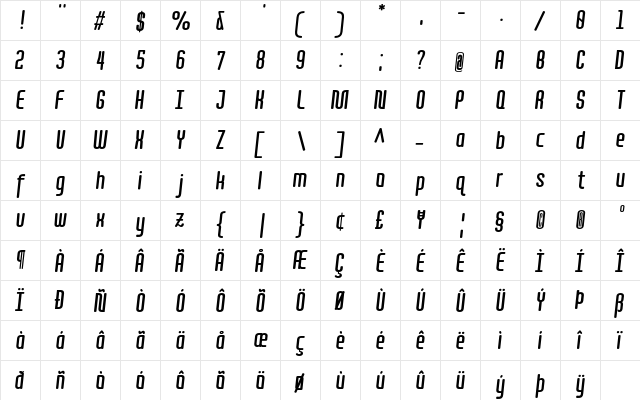
Quota Bold Italic Cond. Font Preview
| Designer | Ryan Hellyer Williamson |
Design Context for Quota Typeface
Quota takes a measured approach to typography — its balanced proportions and neutral character make it a reliable workhorse for both digital and print work. Its italic angle brings a sense of urgency and motion to the letterforms. Its bold stroke weight gives it real presence on the page. The condensed width makes it efficient for tight spaces without sacrificing legibility.